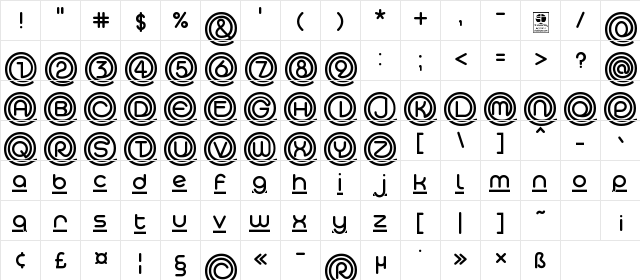
At The Midday Underline Demo Regular Font Preview
At The Midday Underline Demo Regular
Design Context for At The Midday Underline Demo Typeface
At The Midday Underline Demo is a composed and adaptable typeface that performs quietly and consistently across a wide range of design contexts.